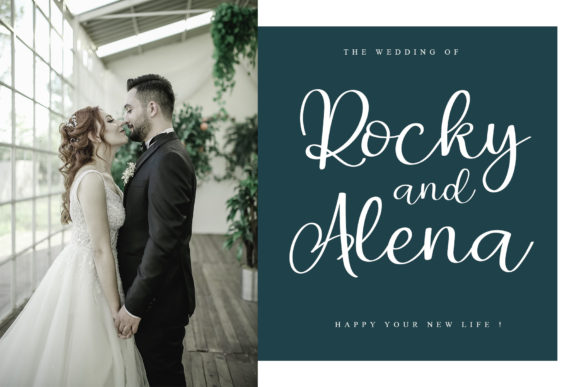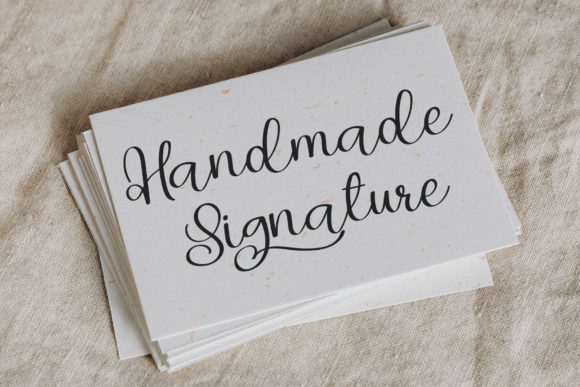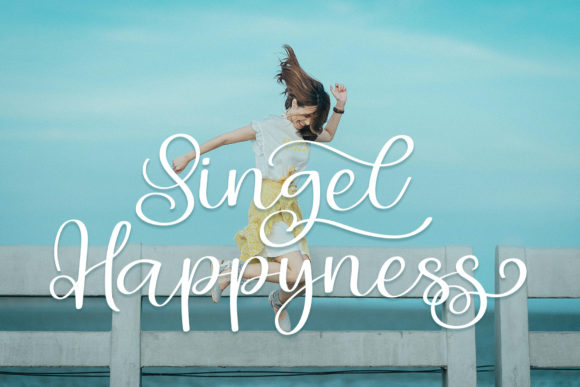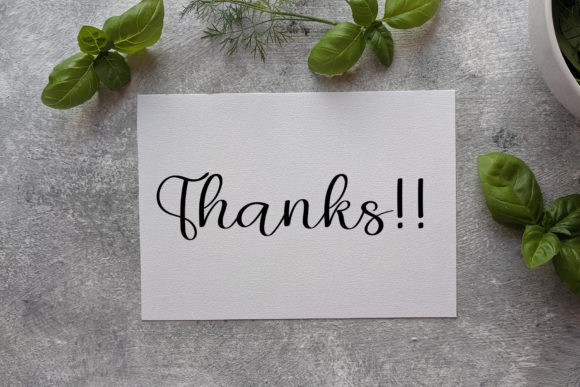
Signless Font
About Signless Font
“Signless” is not just a font—it’s a romantic and sweet calligraphy typeface that brings a touch of elegance to any design. With its characters dancing along the baseline, “Signless” adds a unique and charming flair to your projects.
The graceful strokes and delicate curves of “Signless” evoke a sense of romance and sophistication, making it the perfect choice for projects seeking a luxurious spark. Whether used for wedding invitations, branding materials, packaging, or any other creative endeavor, this font elevates your designs to new levels of elegance and refinement.
Moreover, “Signless” is designed to be versatile and practical. Its well-crafted letterforms ensure readability across various mediums and platforms, ensuring your message is effectively communicated to your audience.
In summary, “Signless” is more than just a font—it’s a romantic and sweet tool that empowers designers to create stunning and memorable designs with ease. Embrace its luxurious spark and watch as it adds a touch of elegance to every project it graces.